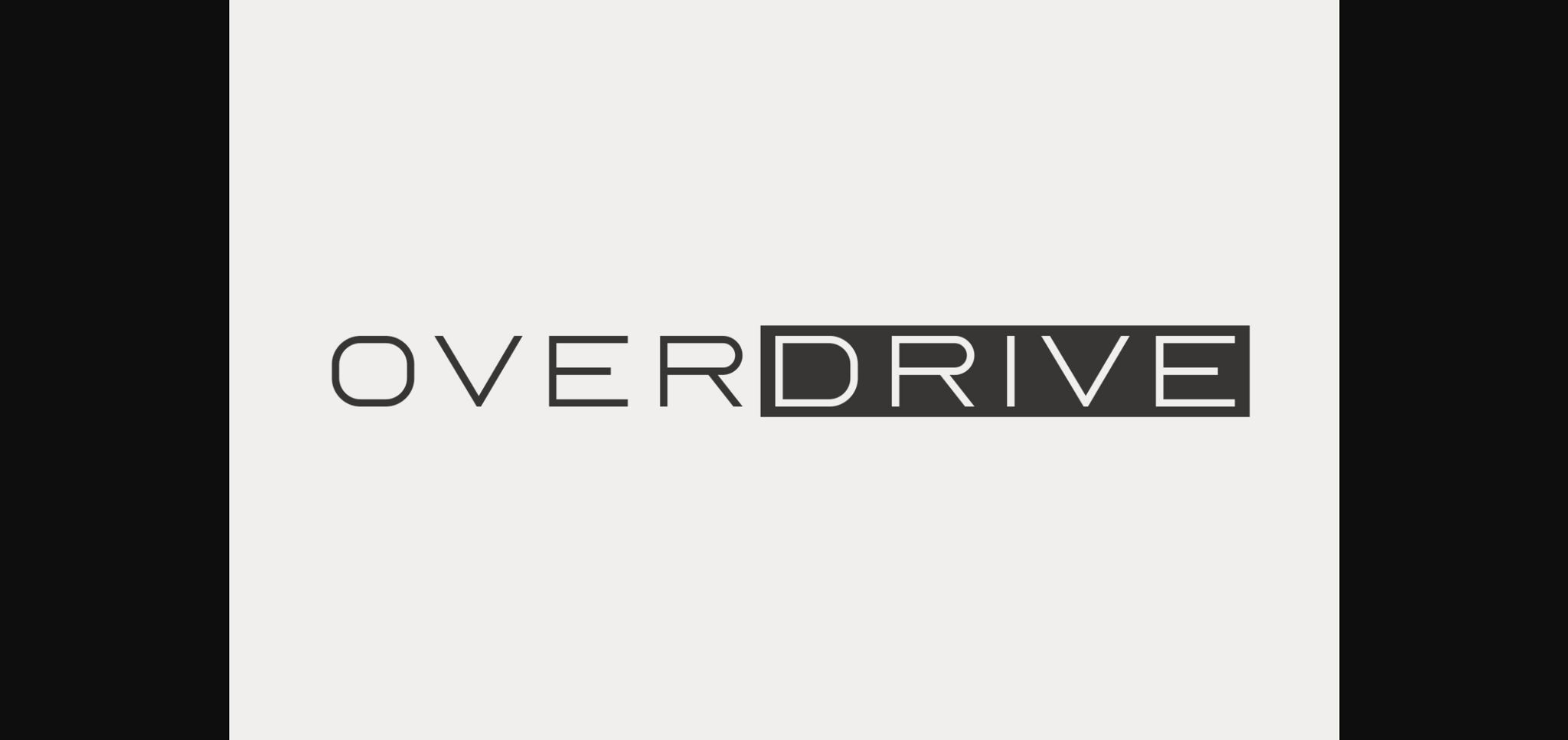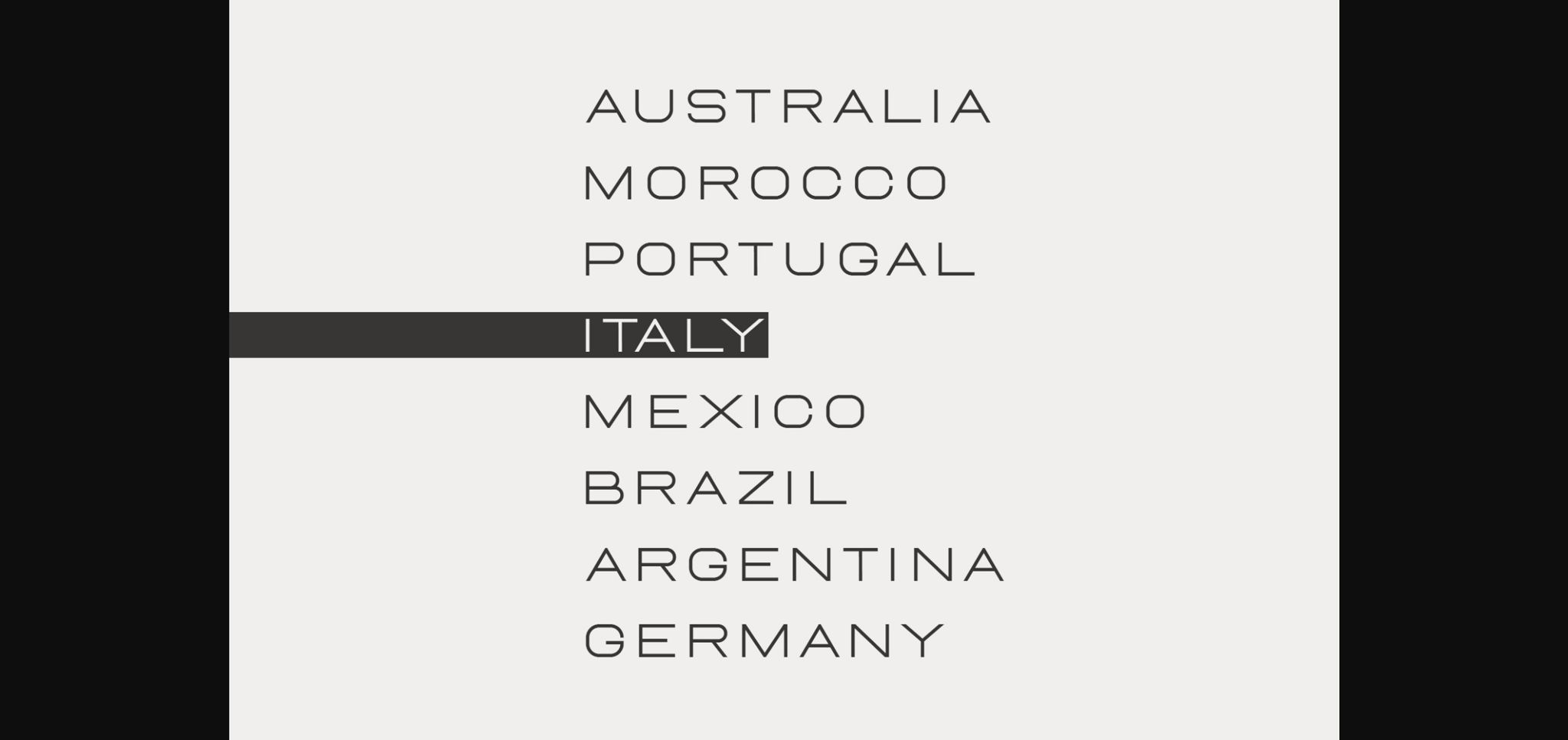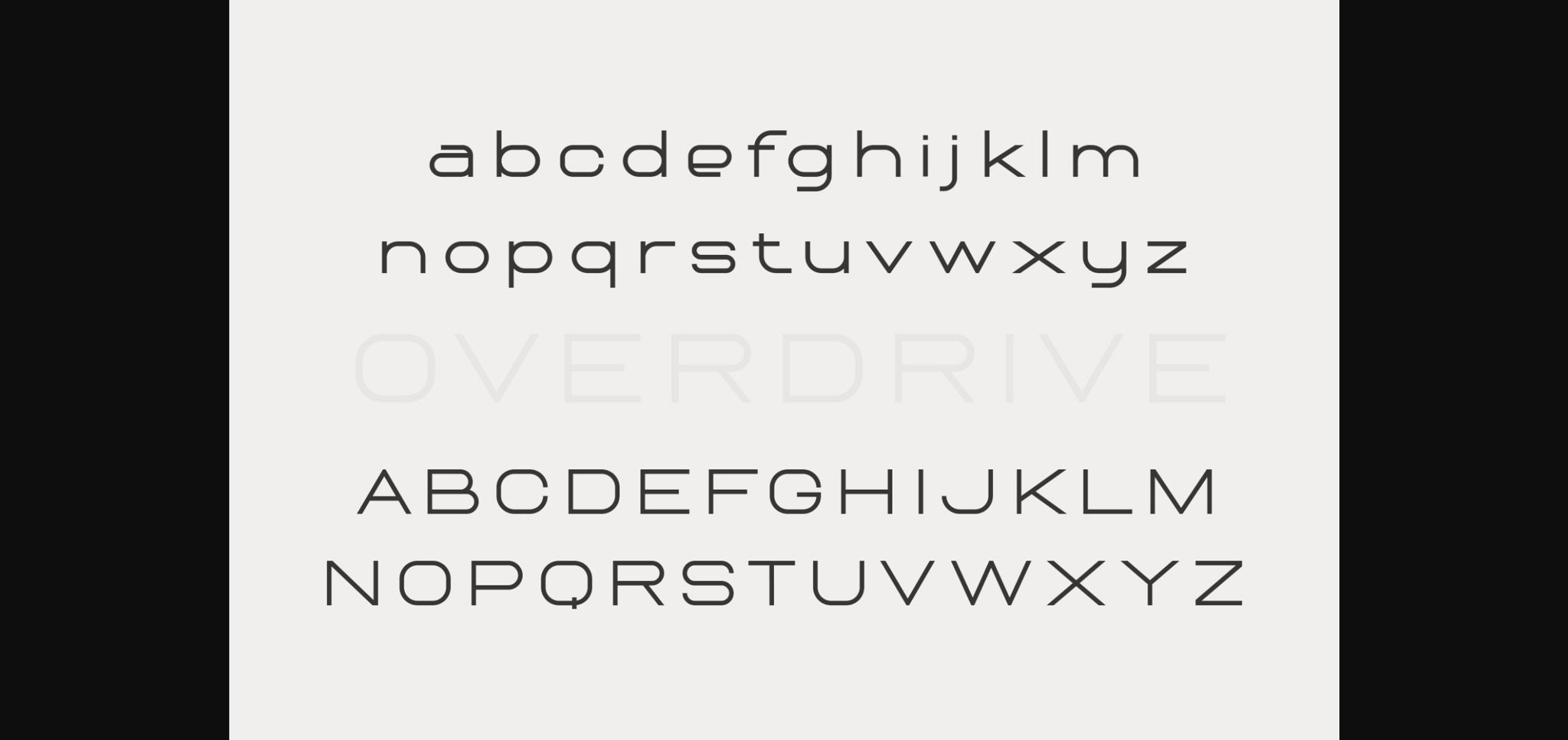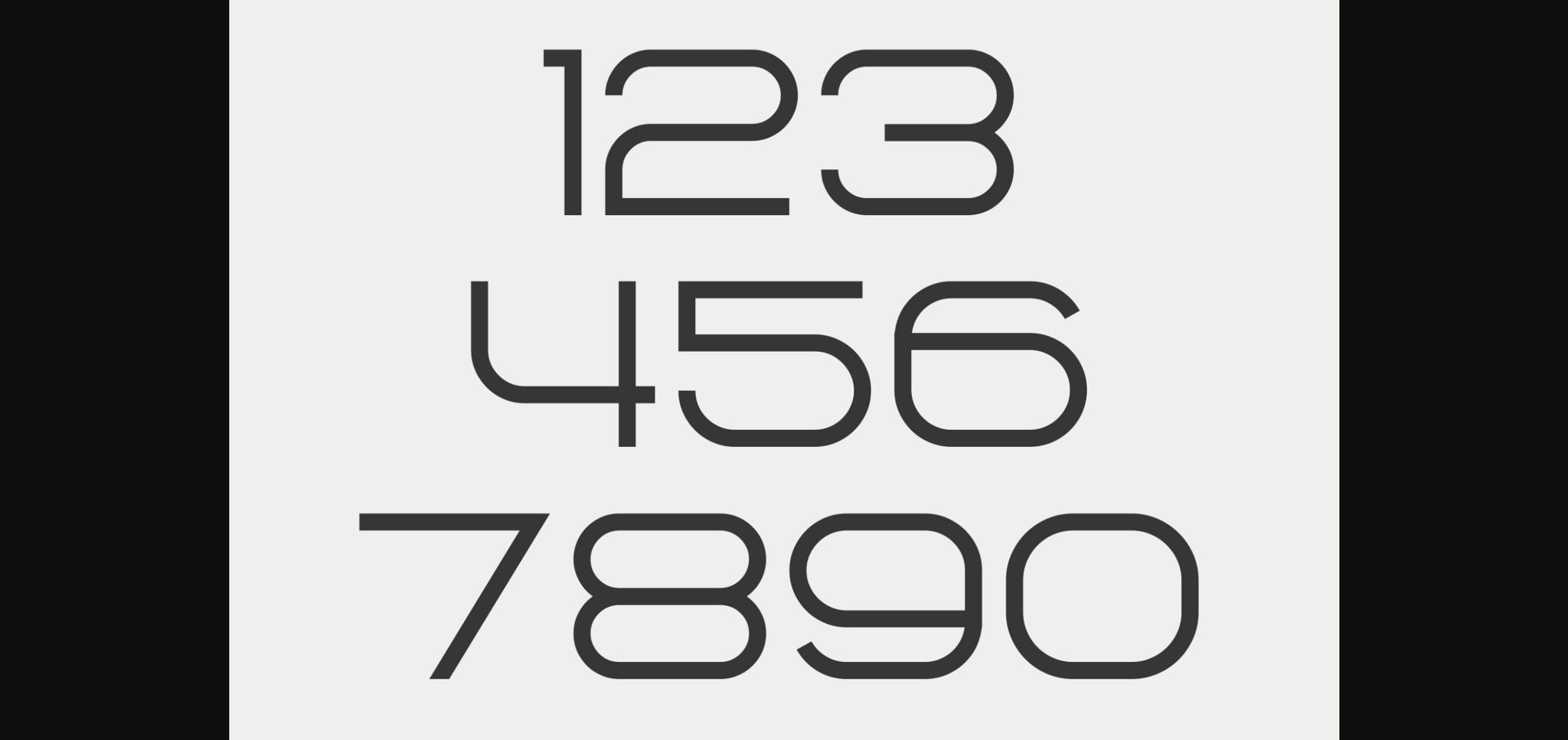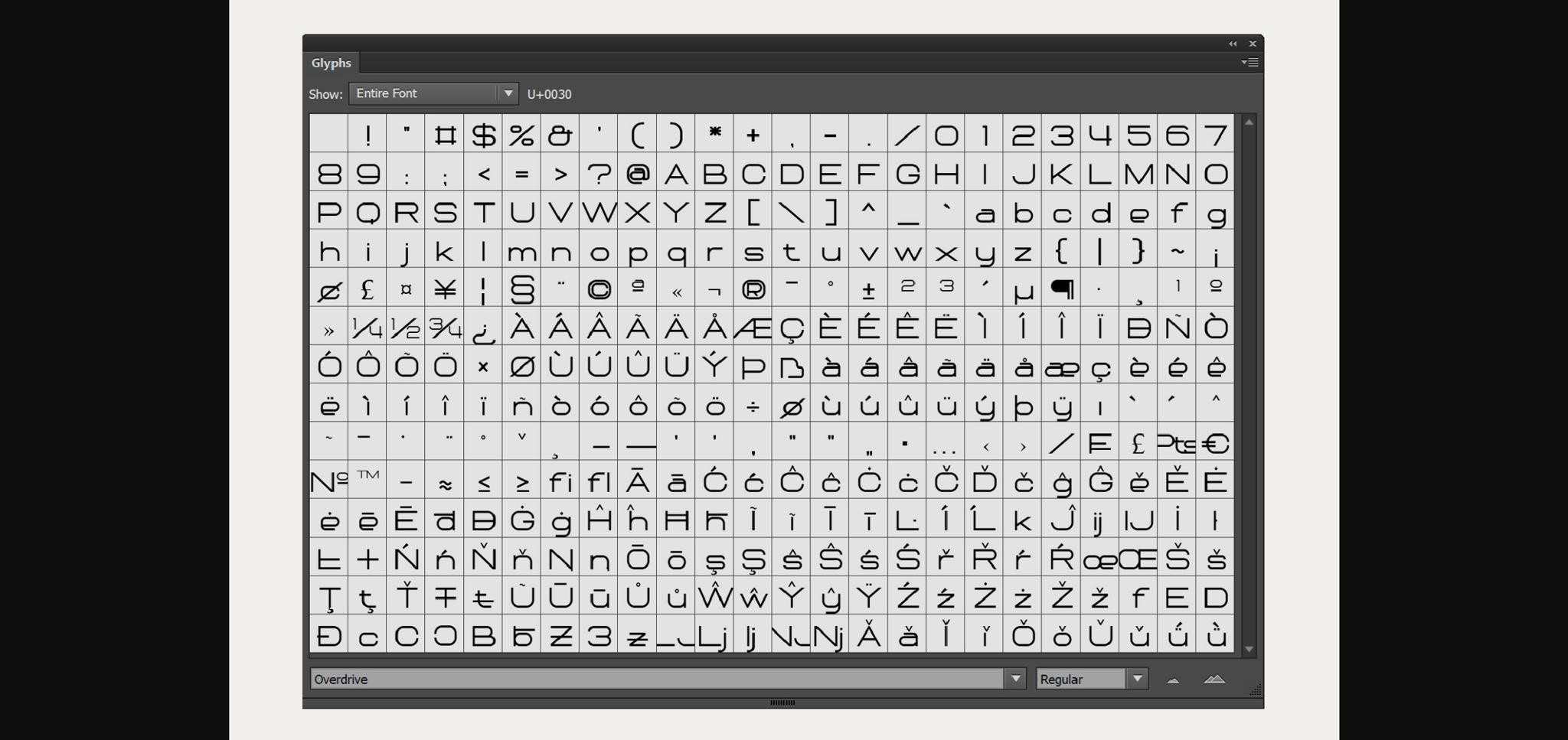
About Overdrive Font
Overdrive is an incredibly simple and minimal sans serif font. due to its futuristic style, this font will complement each of your design ideas.